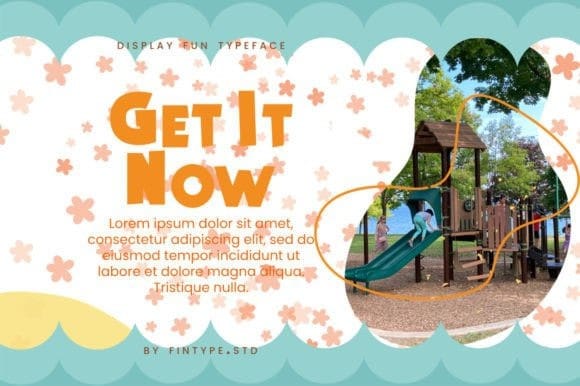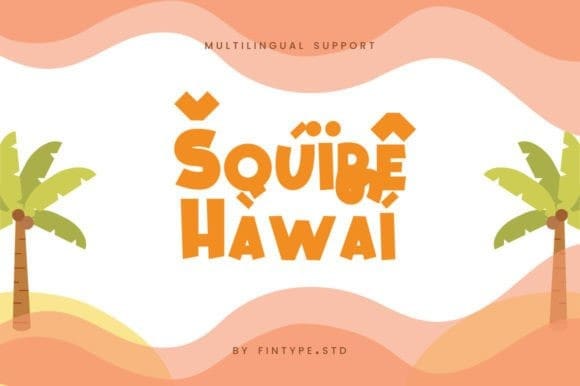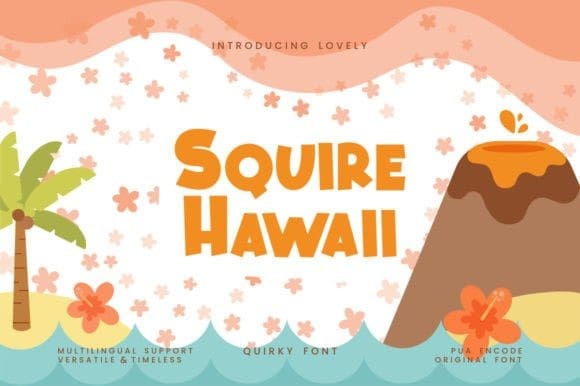
Squire Hawaii Font
Squire Hawaii Font is a fun and cute display font. Its cheerful and playful personality makes it suitable for a wide range of project ideas!